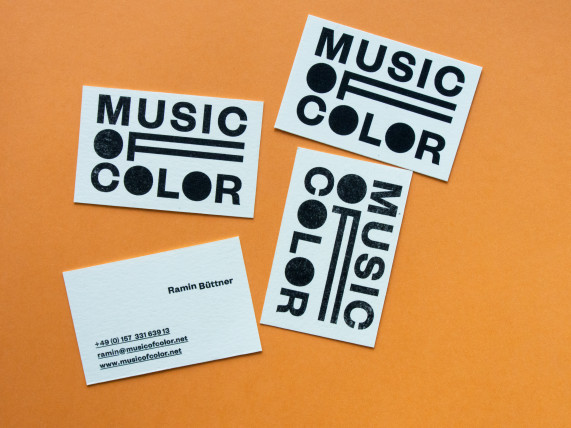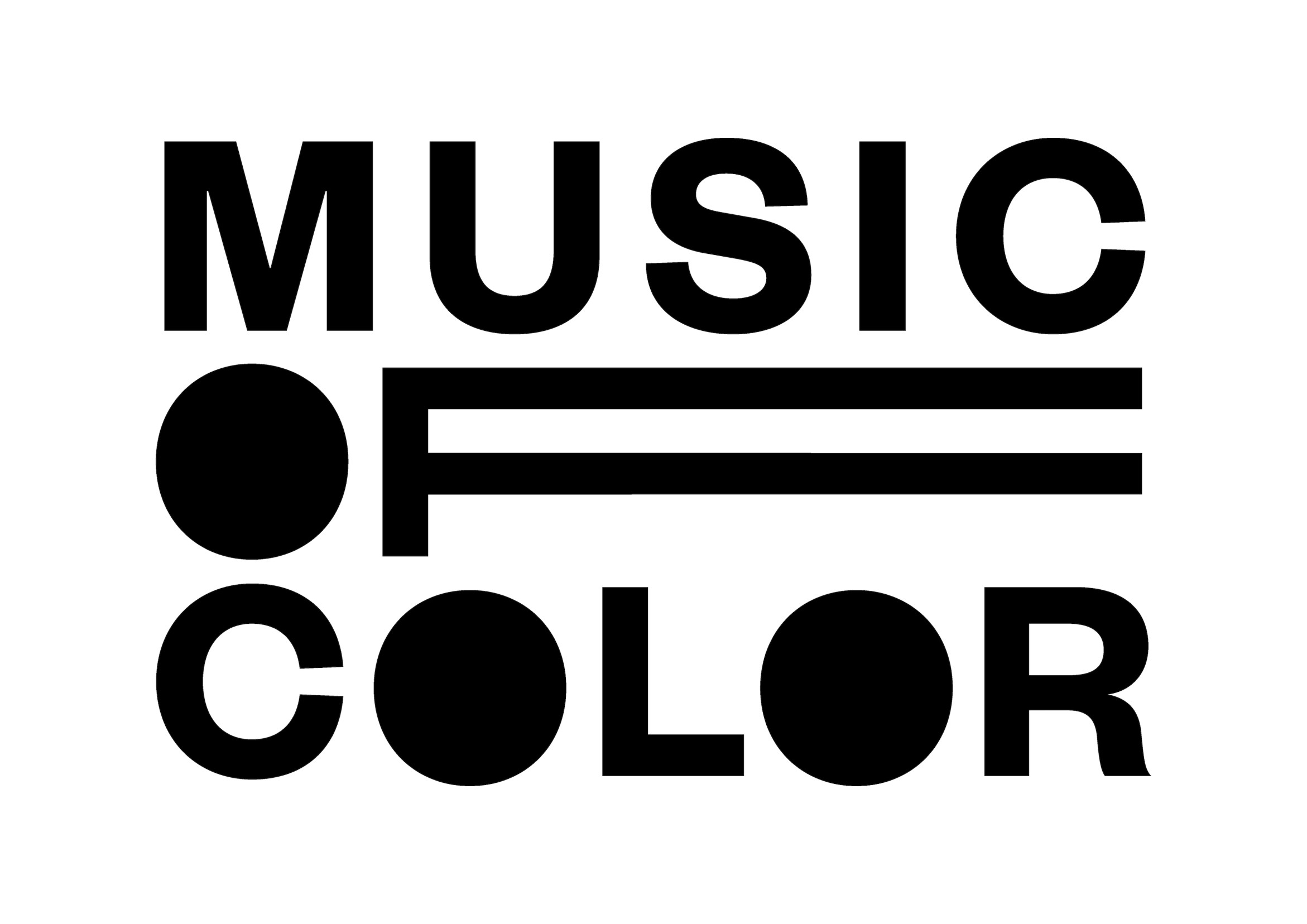
Music Of Color
Logo for Music Of Color — a community space with emphasis on inclusivity that connects & empowers by hosting radio shows, releasing music and organising dances.
Filling the O’s of the logotype creates different darknesses suggesting the many colors of characters, people and music involved in the project but also alludes to turntables or vinyls. Moreover the extended F almost resembles musical staves rounding off the logo.
Typface: Founders Grotesk by Klim Type Foundry